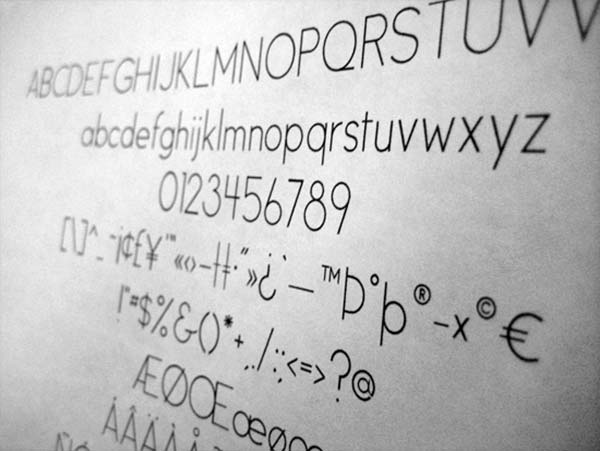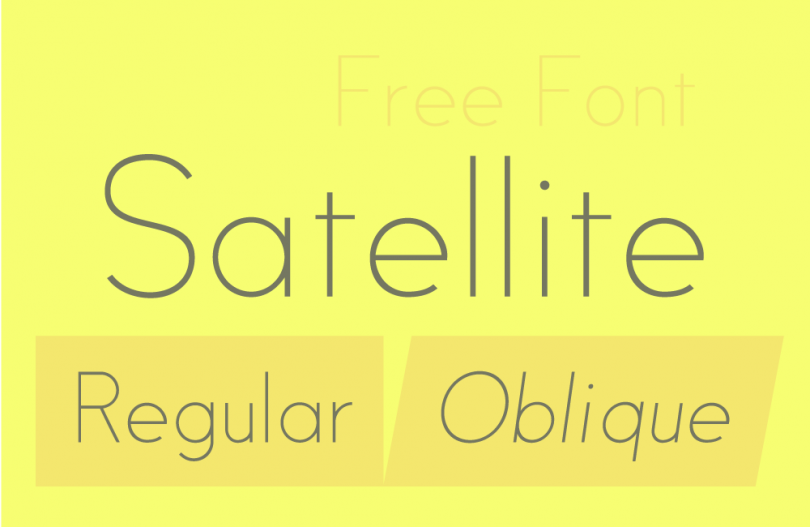
Satellite is a sans-serif free font designed by Matt Yow. Its thin nature makes it look great for clean headlines and enhance readability in websites, brochures, flyers and other graphic design materials. Satellite Font can also work well with logo design to make it elegant. Satellite font comes in regular and oblique types.